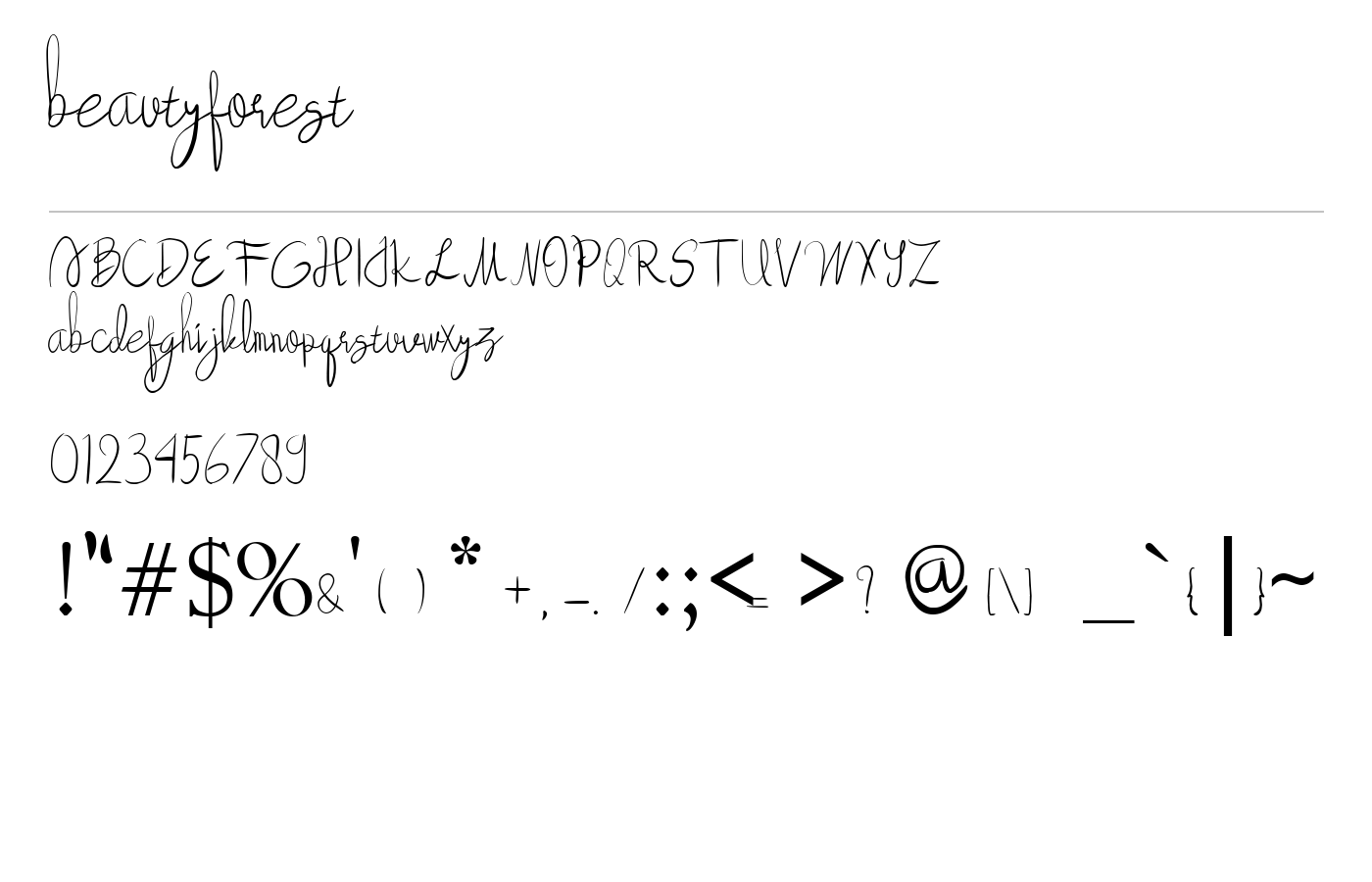
Beautyforest is a delicate, hand-drawn script font with tall, slender letterforms and a whimsical, airy feel. Its thin strokes and elegant curves give it a charming, personal touch, making it perfect for creative projects like branding, invitations, and artistic headlines where a graceful, feminine vibe is desired. This font works best in contexts that call for a light, stylish, and approachable look rather than heavy or highly formal use.
beautyforest Font
About beautyforest Font
| Font family | beautyforest Font |